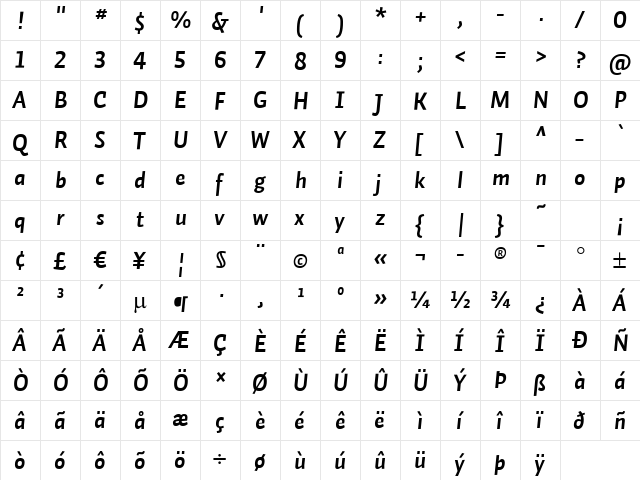
Auto 1 Bold Italic LF
Design Context for Auto 1 Typeface
Auto 1 offers clean, dependable letterforms without strong stylistic allegiance, making it a practical choice for designers who need flexibility. The slanted form adds forward momentum and visual energy. Its bold stroke weight gives it real presence on the page.
Pro Tip: Try Auto 1 for annotation and caption copy alongside an upright companion — the contrast in angle creates a dynamic but ordered typographic system.